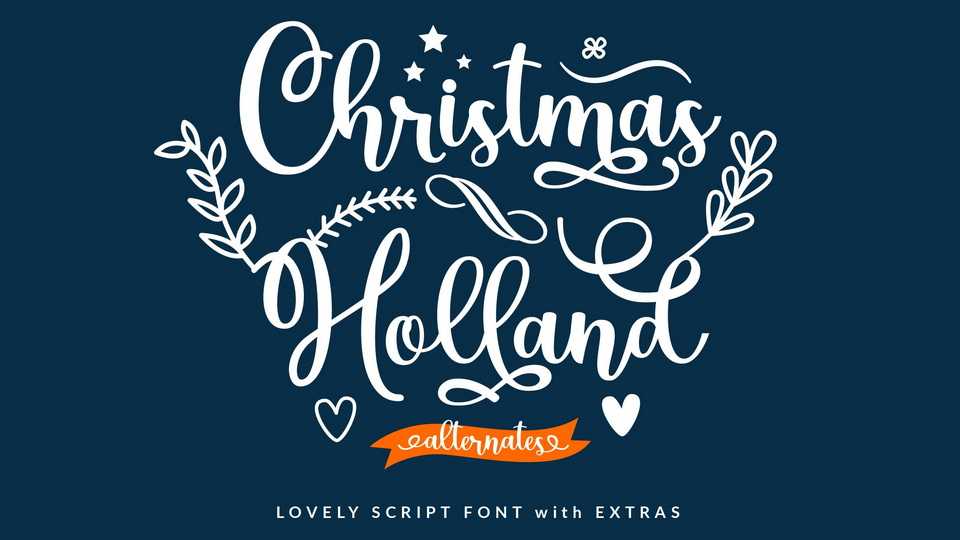
Download Christmas Holland font, a beautiful and romantic handwritten typeface. Christmas Holland looks amazing on thank you cards, quotes, wedding invitations, greeting cards, business cards, logos and any other design that requires a touch of handwriting.